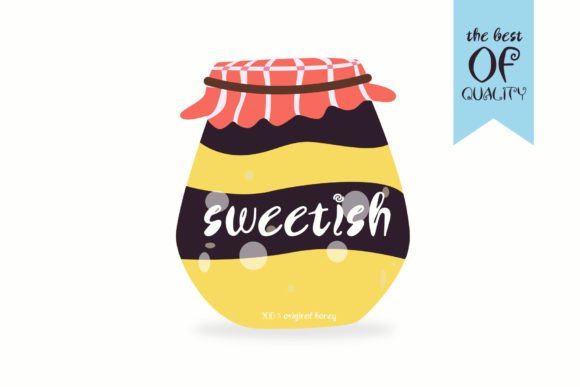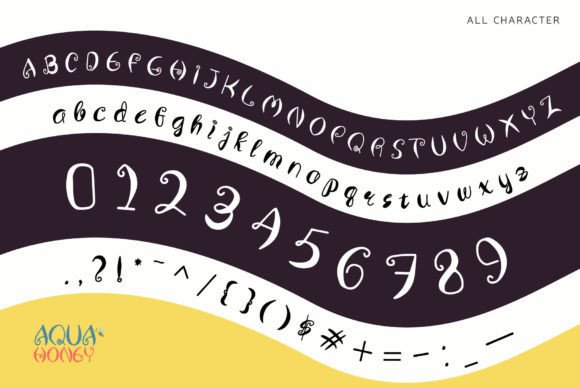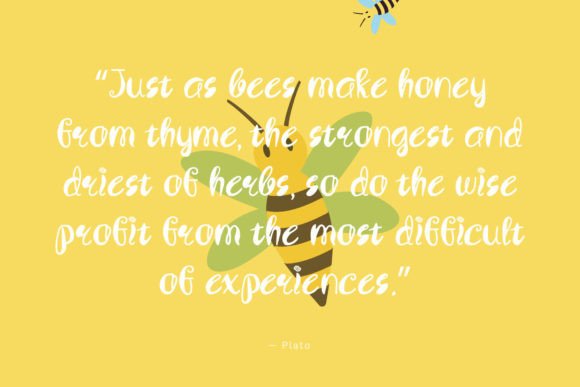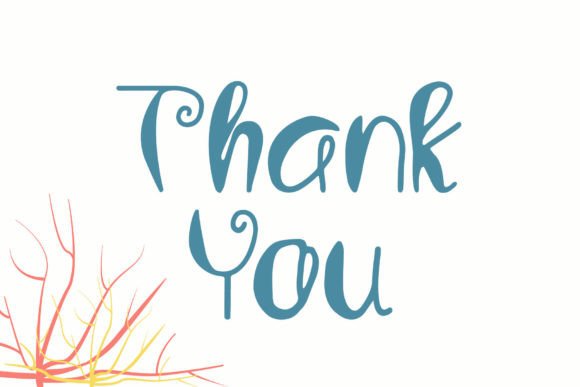
A Refreshing Typography Find: Aqua Honey Font
Imagine you’re flipping through a vintage children’s book, the pages adorned with whimsical illustrations and playful lettering. The words dance across the page, drawing you in with their charm and character. That’s the kind of magic you can bring to your designs with the Aqua Honey Font.
This cute and charming display font is designed to transport you to a world of fantasy and wonder. With its fancy curved shapes and delicate lines, Aqua Honey Font is perfect for creating eye-catching designs for children’s book covers, clothing, stickers, and more. Whether you’re a seasoned designer or just starting out, this font is a valuable addition to your toolkit.
Aqua Honey Font Key Features
- Unique Characteristics: Distinctive aqua-inspired design, featuring smooth curves and subtle texture, ideal for water-themed or nautical projects
- Font Style: Script, with varying line widths and subtle flair, adding a touch of elegance to text
Aqua Honey Font Review
Aqua Honey Font is a beautiful, hand-drawn script font that can add a touch of elegance to your designs. Here’s my honest review:
- Unique, hand-drawn feel: Aqua Honey Font has a distinct, organic feel that sets it apart from other script fonts.
- Beautiful ligatures: The font features beautiful ligatures that add to its overall charm and make it perfect for creative projects.
- Limited font sizes: The font is not available in as many font sizes as other fonts, which may limit its use in certain designs.
- Not ideal for large blocks of text: Due to its hand-drawn nature, Aqua Honey Font may not be the best choice for large blocks of text, as it can be difficult to read.
Aqua Honey Font is a beautiful, unique font that is perfect for creative projects, such as invitations, wedding designs, and other decorative elements. While it has some limitations, its unique feel and beautiful ligatures make it a great addition to any designer’s toolkit.
Getting the Most Out of Aqua Honey Font
For optimal results, use Aqua Honey Font in combination with a light-colored background to create a striking contrast.
Aqua Honey Font is ideal for:
1. Water-themed designs and projects.
2. Minimalist and modern designs.
3. Branding and logos that require a unique and distinctive font.